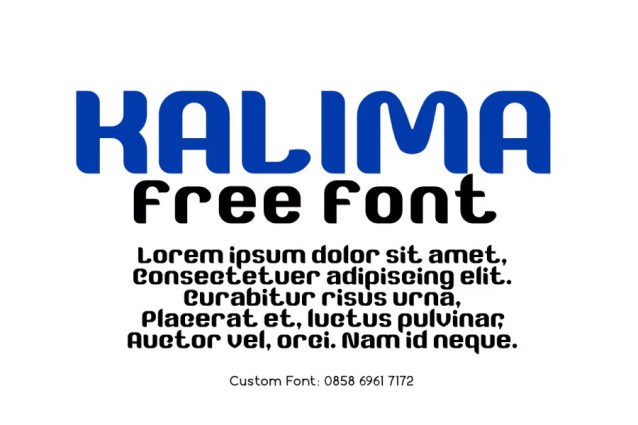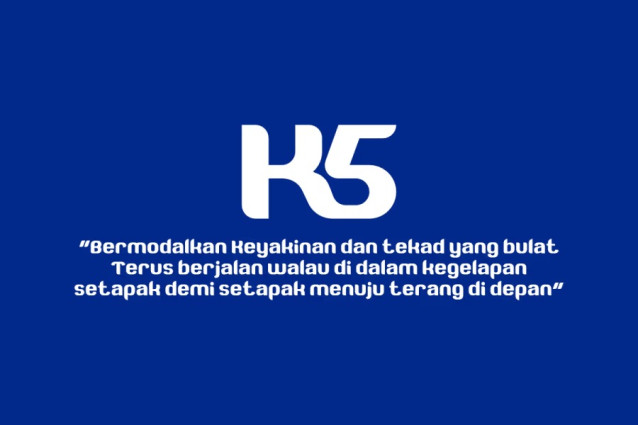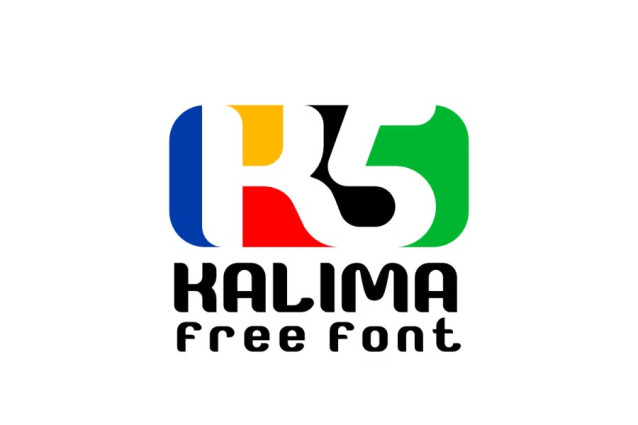
Kalima Font is a simple and modern display font suitable for quotes, logos, headings, titles, and many more. Use it on any of your creative projects, and your designs will become outstanding!
Kalima Font
| Classification: | Display Fonts, Modern Fonts |